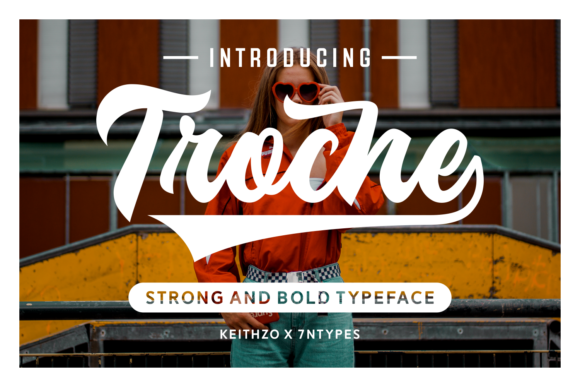
**Introducing Troche: The Bold Script Font That Turns Your Words Into Art**
In a world of ordinary fonts, Troche stands tall with its captivating presence. This stunning script family, meticulously crafted by Keithzo (7NTypes), exudes an aura of unwavering strength and captivating allure. Its bold letters, each a masterpiece of digital calligraphy, dance across the screen with a confidence that's impossible to ignore.
But Troche is more than just a visually striking font. Its carefully designed curves and flourishes ensure exceptional readability, making it the perfect choice for any design that demands an unforgettable typeface. Whether you're creating eye-catching headlines, elegant invitations, or personalizing your social media posts, Troche will elevate your words, transforming them into works of art.
At the heart of Troche lies a deep understanding of typography and a passion for creating fonts that make a statement. Each letterform has been meticulously designed to convey a sense of power and individuality, making Troche the ideal choice for those seeking a font that truly captures their unique voice.
**Unlock a World of Creative Possibilities with Troche**
With Troche at your fingertips, your designs will transcend the ordinary and enter the realm of the extraordinary. Its versatility knows no bounds, making it suitable for a wide range of projects, including:
* **Tattoos:** Troche's bold lines and striking presence make it the perfect choice for capturing the essence of a meaningful tattoo. Its unique style will ensure that your ink stands out from the crowd, becoming a timeless expression of your individuality.
* **Lettering:** Transform your handwritten notes, invitations, and artwork into masterpieces with Troche. Its elegant curves and flourishes will add a touch of sophistication and charm to any lettering project.
* **Branding:** Make your brand stand out from the competition with Troche. Its strong, memorable characters will leave a lasting impression on your audience, creating a brand identity that exudes confidence and creativity.
* **Social Media:** Engage your followers and make your posts stand out with Troche. Its visually appealing design will capture attention, ensuring that your message reaches a wider audience.